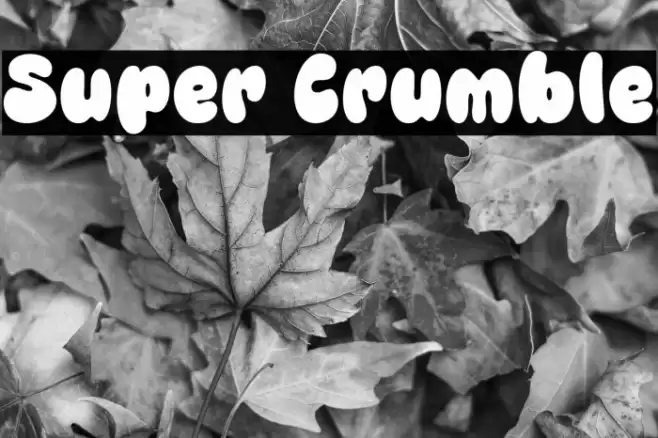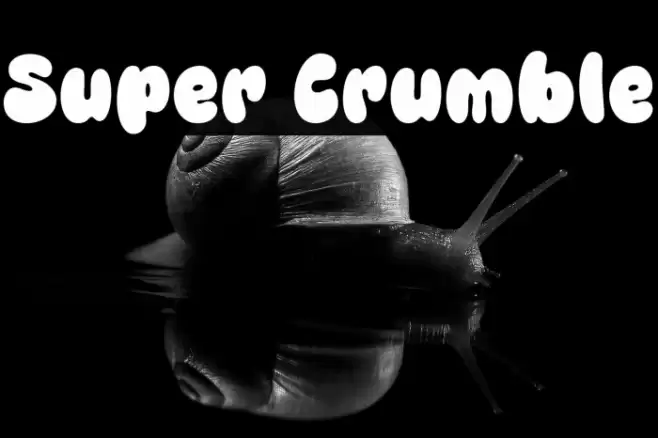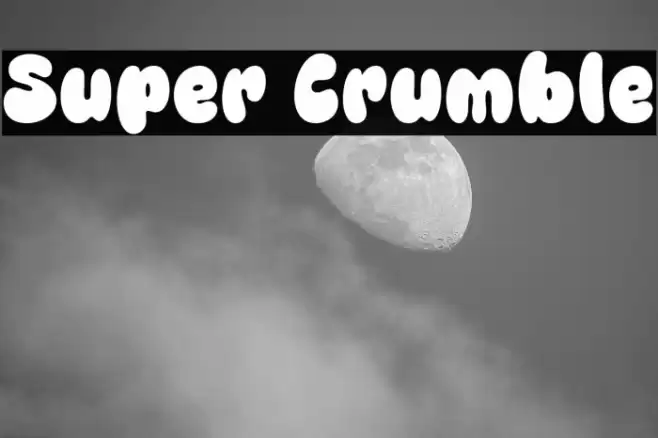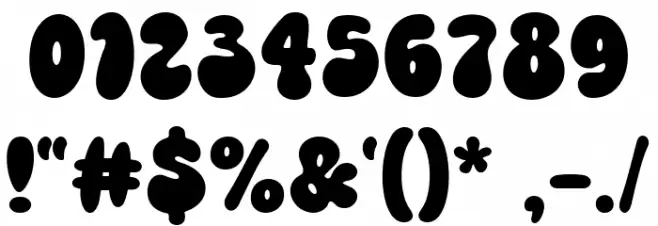
Super Crumble Font
Super Crumble Description
This playful and bold typeface features rounded, bubbly characters that exude a sense of fun and whimsy. The letters are thick and substantial, with a uniform stroke width that gives them a cohesive and solid appearance. The overall design is reminiscent of playful, cartoonish styles, making it ideal for projects that aim to capture attention and convey a lighthearted tone. The font includes a full set of uppercase and lowercase letters, numbers, and a variety of special characters, all maintaining the same playful aesthetic. Its boldness and unique character shapes make it stand out, ensuring that any text set in this typeface will be both eye-catching and memorable.
A playful, bold typeface with rounded, bubbly characters perfect for fun and whimsical designs from Uncategorized fonts.
- Proposed Projects: Ideal for children's books, playful branding, party invitations, and any project needing a fun, eye-catching typeface.
- Overall Style: Playful, Whimsical, Fun